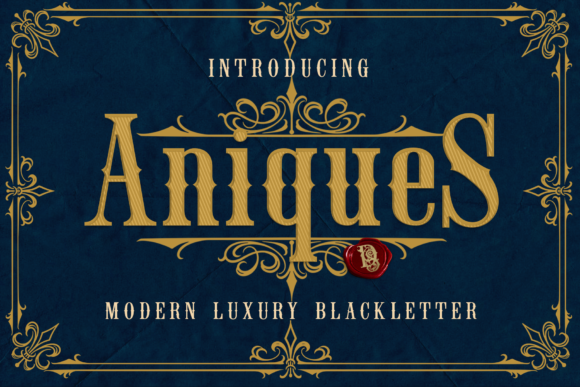
The Power of Aniques Font: Elevate Your Designs with Victorian Elegance
I’ll never forget the time I was working on a branding project for a luxury candle company. I had spent hours perfecting the logo design, but something was missing. The font I had chosen just wasn’t giving the vibe I wanted – it felt too modern, too sleek. I needed something with a bit more character, a bit more elegance. That’s when I stumbled upon Aniques Font, a stunning Victorian-styled blackletter font that completely transformed my design.
As a designer, I’m always on the lookout for fonts that can add a touch of sophistication to my projects. Aniques Font delivers in spades. Here’s what I love:
- ✨ Unique and distinctive blackletter style that’s perfect for luxury brands or creative projects
- ✅ Elegant and refined, with intricate details that add depth and character
- 💯 Highly versatile – use it for logos, branding, labels, cards, and more
- 🤔 Some users may find the font a bit tricky to read at small sizes – best used at larger sizes (24pt+) for maximum impact
- ⚠️ Limited use of OpenType features, which may limit advanced typographic control
One of the best things about Aniques Font is its range of OpenType features and glyphs. These allow you to customize your text and add more personality to your design. Here are a few tips for getting started:
The Story Behind Aniques Font
So, where did Aniques Font come from? According to its creators, the font was inspired by the ornate, elegant typography of the Victorian era. The designers wanted to create a font that would evoke the luxury and sophistication of this bygone era, while still being versatile and easy to use. The result is a font that’s both timeless and modern – perfect for a wide range of design projects.
| Font Name | Aniques Font |
| Author | Dansdesign |
| Q: What type of projects is Aniques Font best suited for? | A: Aniques Font is perfect for luxury brands, creative projects, and designs that require a touch of elegance and sophistication. |
| Q: Is Aniques Font easy to read? | A: Aniques Font is designed to be elegant and refined, but it may be tricky to read at small sizes. Best used at larger sizes (24pt+) for maximum impact. |
| Q: Can I use Aniques Font with other fonts? | A: Absolutely! Aniques Font pairs beautifully with a range of fonts – experiment with different combinations to find the perfect look for your project. |